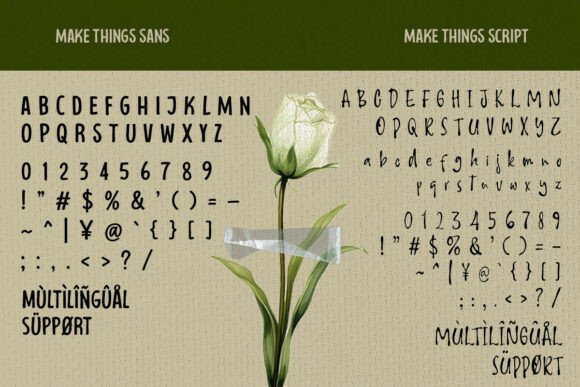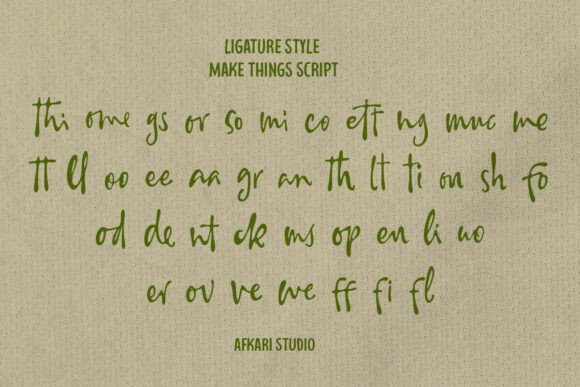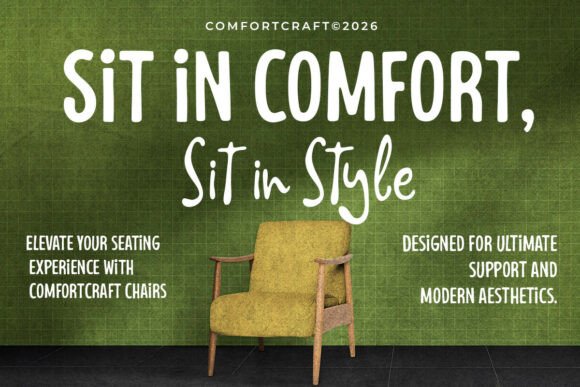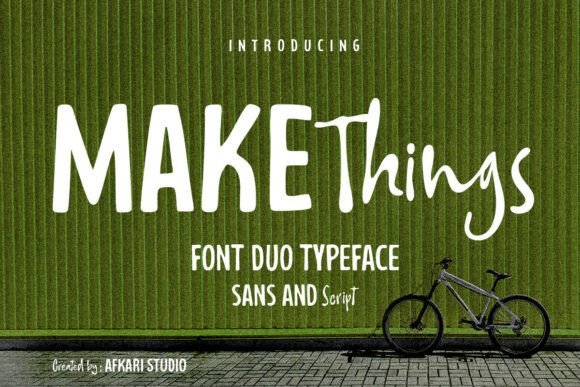
Introduction to Make Things Font
Make Things is a versatile sans and script font duo typeface designed to give your projects the perfect balance between clean modern structure and expressive handwritten style.
This powerful combination allows you to effortlessly create stunning typography with contrast, harmony, and visual interest The sans serif font delivers a minimalist, professional, and highly readable look, while the script font adds a natural, flowing, and personal touch.
Key Features of Make Things Font
Why Choose Make Things Font?
Make Things Font offers exceptional quality and versatility, making it a valuable addition to your design toolkit. Whether you’re creating for personal projects or commercial use, Make Things Font delivers professional results.